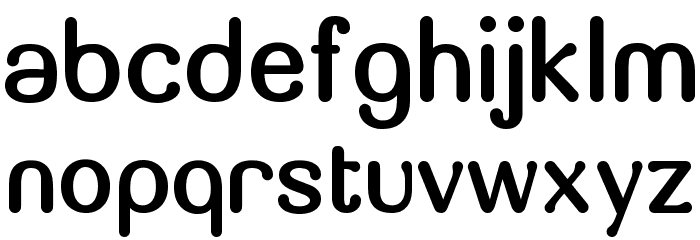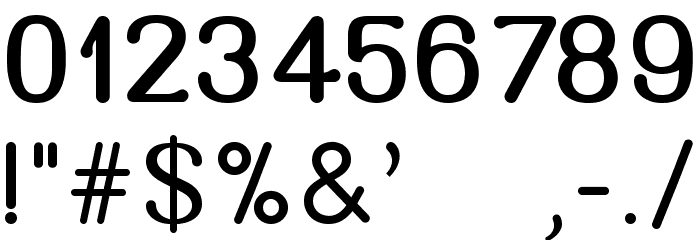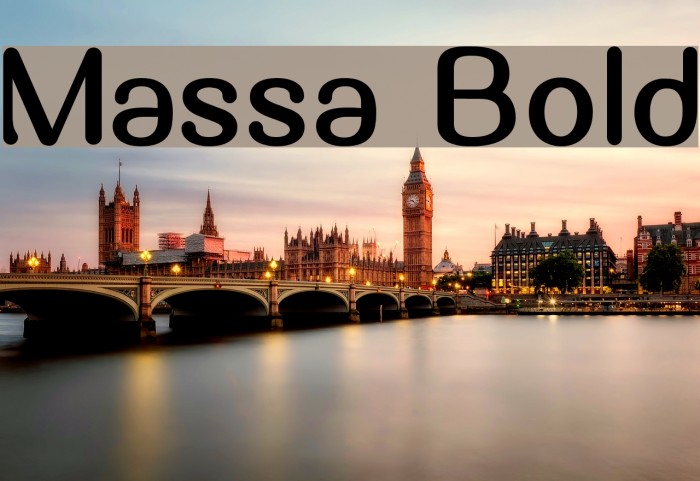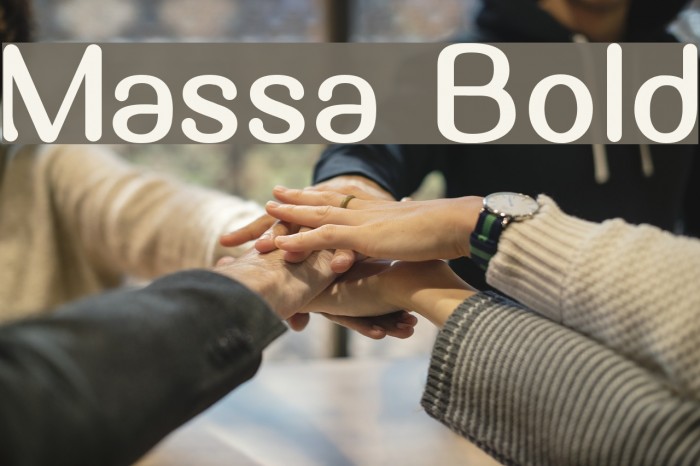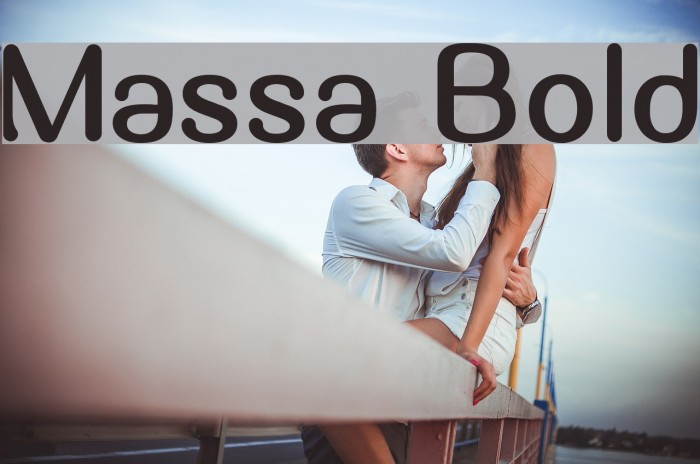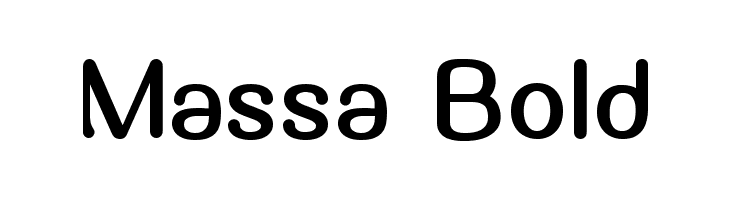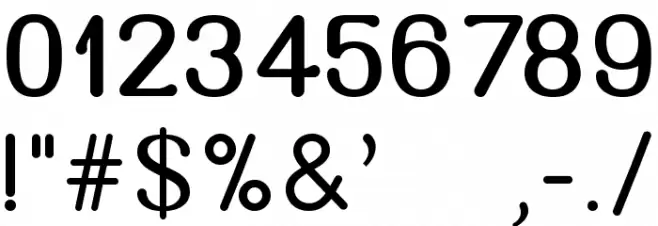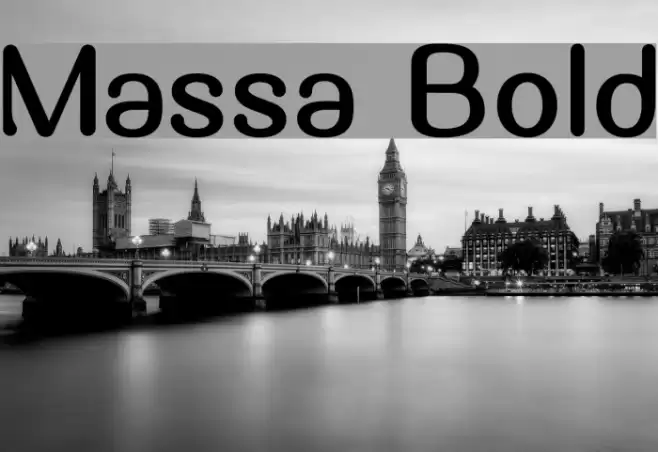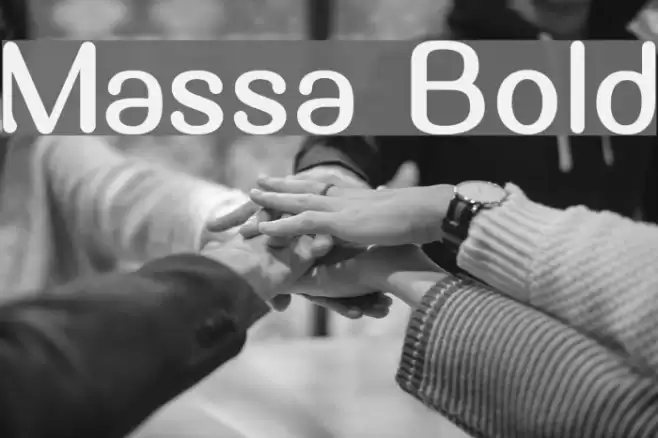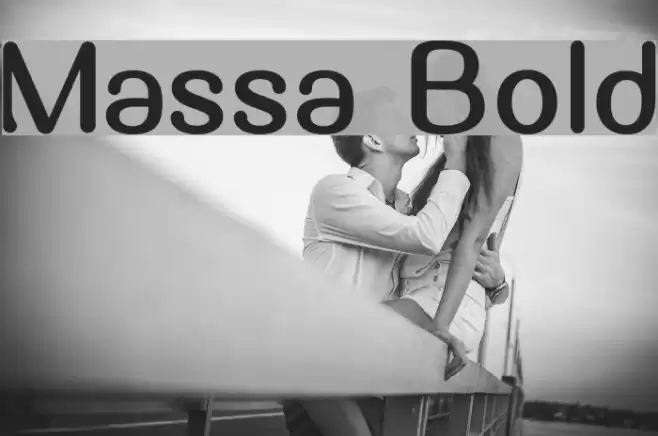
Massa Bold Font
This font features a clean and modern sans-serif style with rounded edges, giving it a friendly and approachable appearance. The characters are evenly spaced, providing a balanced and harmonious look. The uppercase and lowercase letters maintain a consistent weight, contributing to its readability. The numerals are clear and distinct, making them suitable for various applications. Special characters are well-defined, ensuring versatility in design projects. Overall, this font's simplicity and clarity make it ideal for both digital and print media.
A modern, rounded sans-serif font with a clean and approachable style.
- Proposed Projects: Ideal for branding, web design, user interfaces, and educational materials.